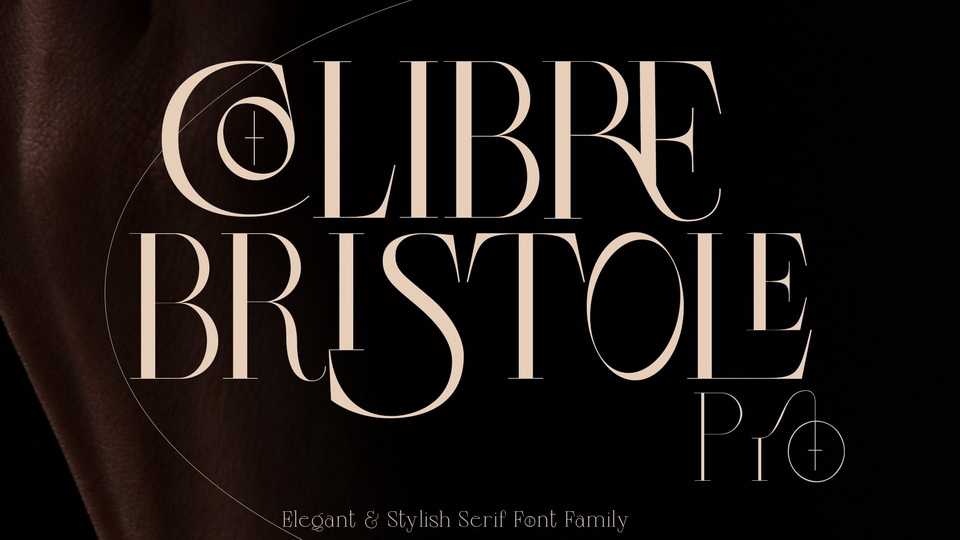
Download Colibre Bristole font, a modern aesthetic serif typeface crafted with precision. Colibre Bristole is ideal for logos and branding, posters and editorial use.